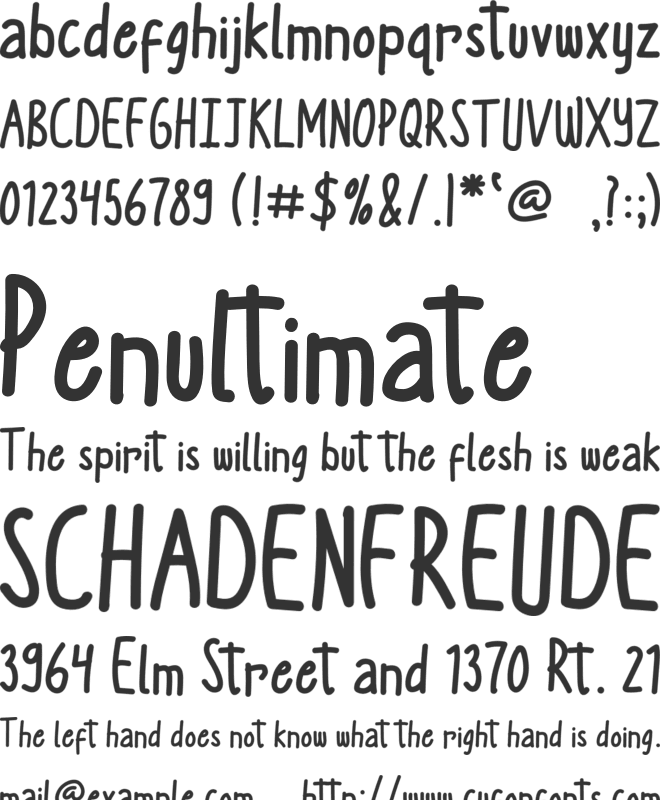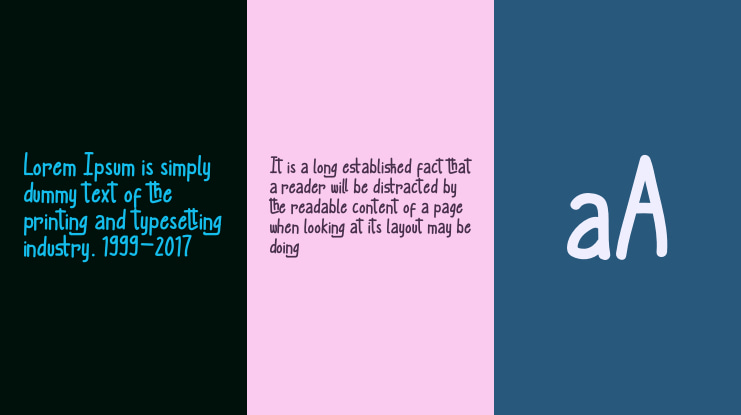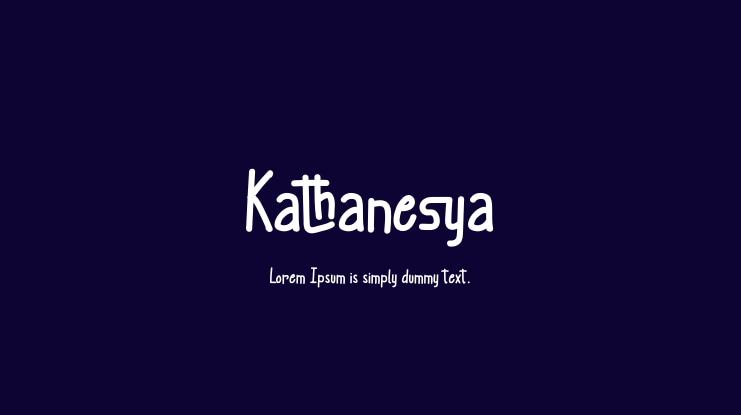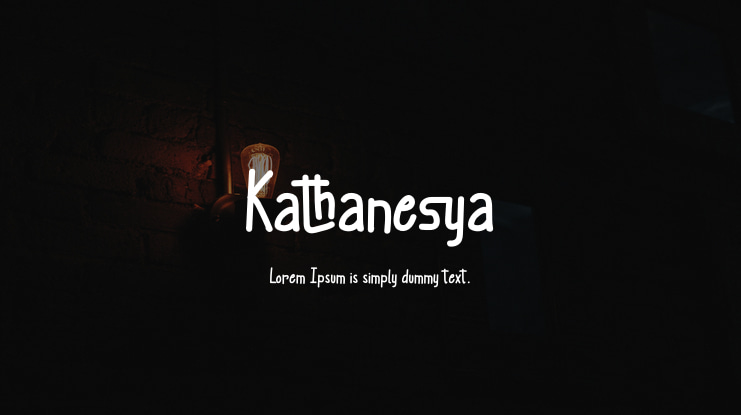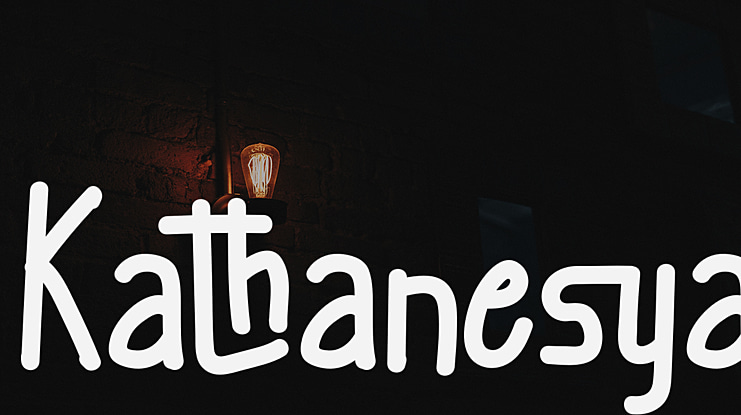
Kathanesya Font
Kathanesya Font is a Modern Display Font which has Classy and Elegant Font style. It will elevate a wide range of design projects to the highest level, be it branding, headings, wedding designs, signatures, logos, labels, and much more!